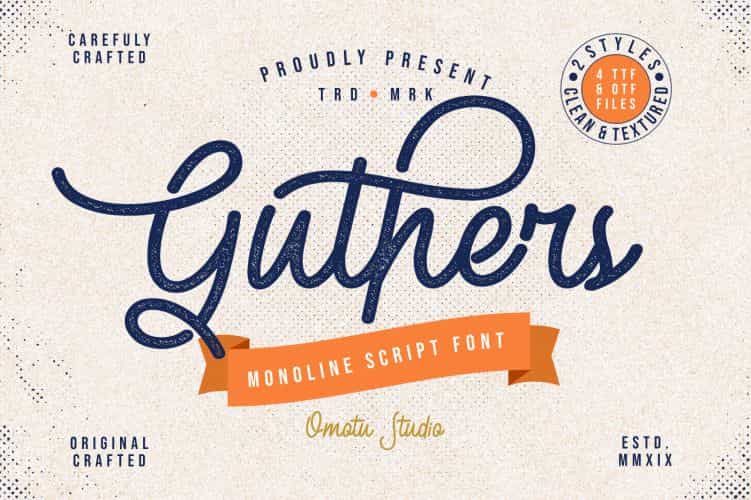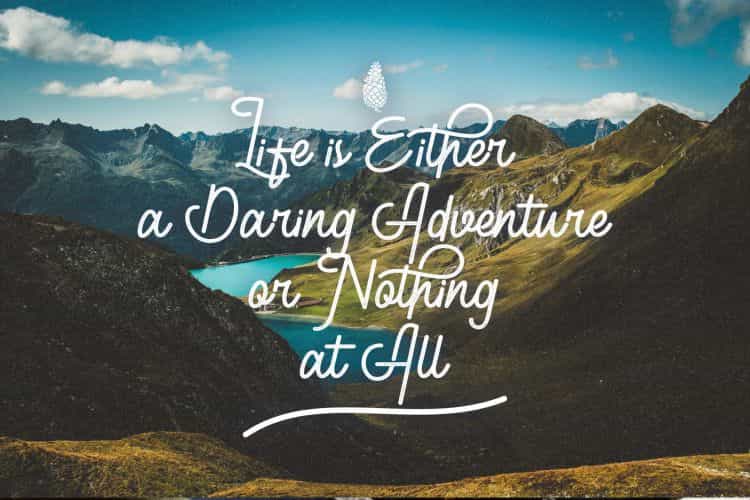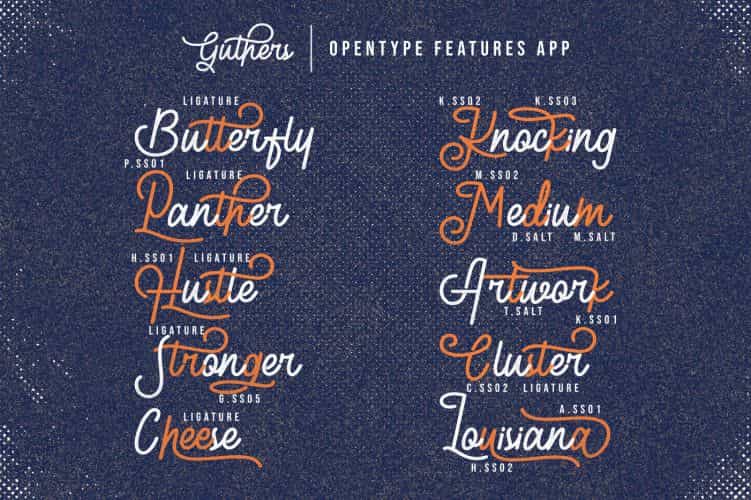
Guthers Monoline Script Font is now available. Having the most popular hand lettered style among all, let your work acquire that stylish hand rendered look with no effort. Its inspiration is from nature, adventure and vintage typeface which makes it very good for logo creation, clothing brand branding, vintage looks etc. Add the Bonus badge & an illustration to it.